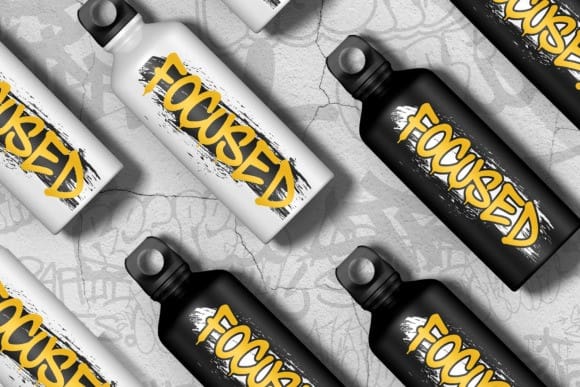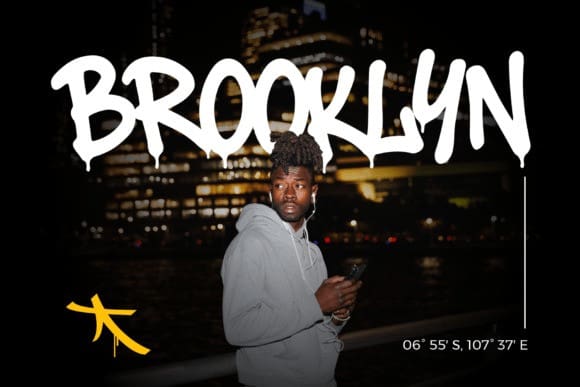
Death Subway Font
Death Subway Font is a raw, energetic handstyle graffiti creation inspired by underground street art and urban rebellion. Designed for artists, designers, and brands who want to bring an authentic spray-paint aesthetic into their visuals, this font captures the true rhythm of graffiti culture — bold, fast, and fearless.
It comes in two expressive styles: Clean and Drip. The clean version delivers tight, legible strokes, ideal for branding and typography that needs structure while maintaining its street soul. The drip style adds the essence of freshly painted walls and tagging energy, where ink drips bring motion and attitude to every word. Together, they create a visual identity that’s both artistic and rebellious.
The name “Death Subway” reflects its roots in underground graffiti — the kind of art seen under bridges, on subway walls, and across the concrete jungle. Each letter in this typeface feels hand-crafted, with imperfect edges and natural flow inspired by real marker lines. It’s not just a font — it’s a visual shout of expression, confidence, and raw energy.
Perfect for posters, apparel, album covers, stickers, event flyers, and streetwear branding, Death Subway thrives anywhere you need impact. Its organic flow works for both print and digital applications, from gritty merchandise designs to clean digital ads.